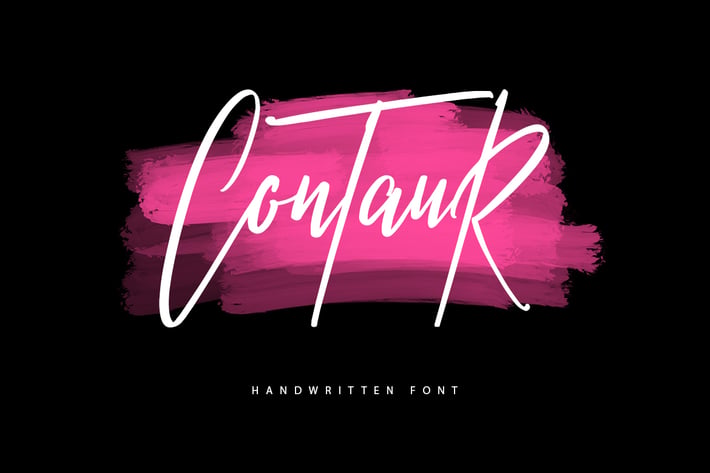
Contaur Typeface
Give your designs an authentic handcrafted feel. "Contaur" is perfectly suited to signature, stationery, logo, typography quotes, magazine or book cover, website header, clothing, branding, packaging design and more.